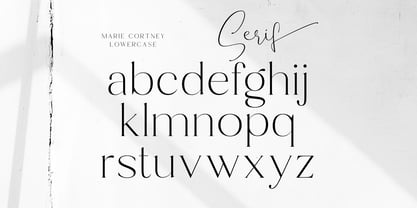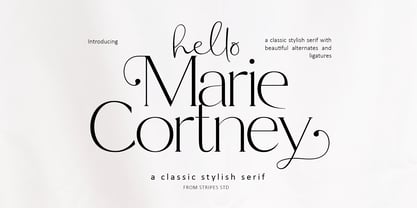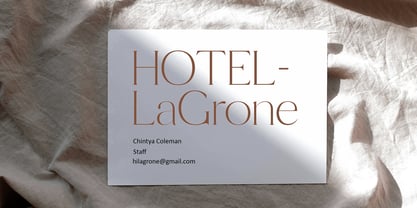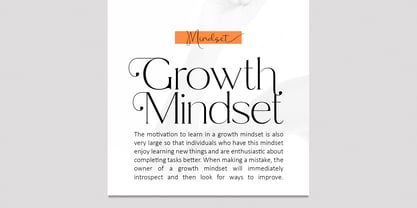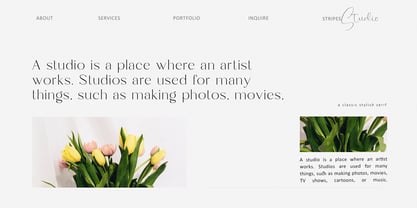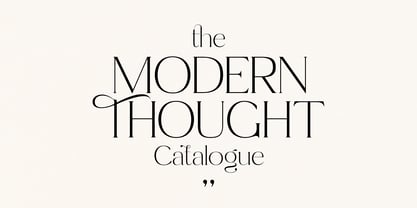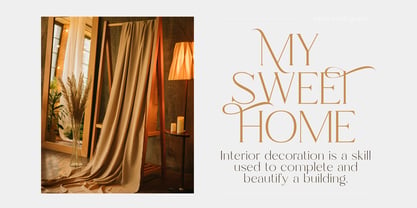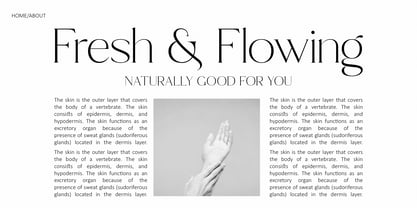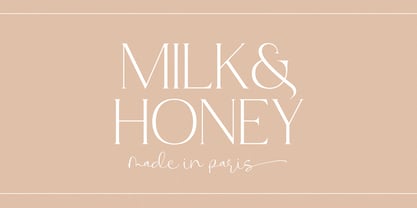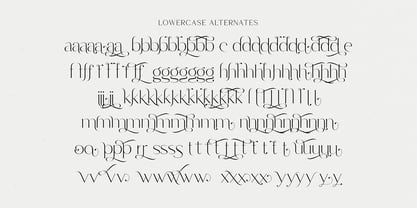
Marie Cortney
The Marie Cortney Font Family was designed by Yur Lis and published by Stripes Studio. Marie Cortney contains 1 styles. More about this family
Marie Cortney is a stylish serif with beautiful ligatures and alternates. Add interest by adding beautiful ligatures to make your typography truly unique. Perfect for all your creativity.